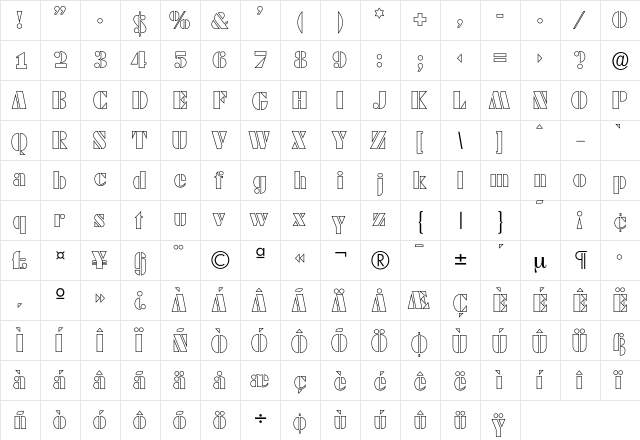
Dekoblack-Open Regular
Design Context for Dekoblack-Open Typeface
Dekoblack-Open is a composed and adaptable typeface that performs quietly and consistently across a wide range of design contexts.